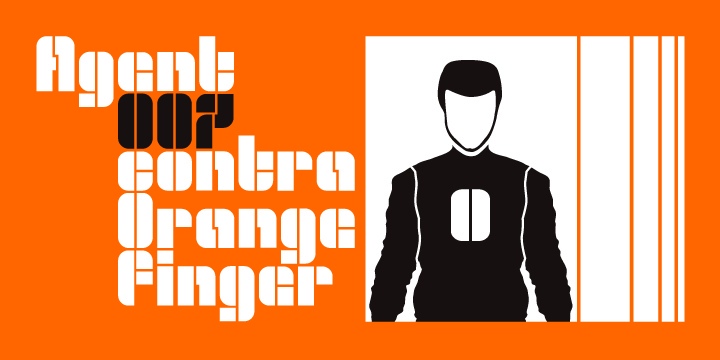
Orange Royale Font
Orange Royale Font is perfect for citrus grove branding, luxury orange juice packaging, upscale juice bar signage, premium vitamin C product labels, tropical resort marketing, sunny breakfast restaurant menus, fresh produce market promotions, and vibrant lifestyle communications where citrus luxury and sunny sophistication are emphasized.
What makes Orange Royale Font so exciting is its radiant ability to capture the luxurious essence of premium citrus through vibrant letterforms that embody the fresh elegance and sunny warmth of royal oranges while maintaining exceptional readability for upscale communications. The luminous character design reflects the premium quality and natural vitality that defines luxury citrus products and sunny lifestyle experiences.
The Orange Royale Font family includes light, regular, medium, bold, and script variants, with citrus-inspired decorative elements and royal ornaments that provide comprehensive tools for creating authentic premium citrus branding and luxury fresh produce design systems.
This distinguished typeface embodies the essence of citrus luxury, combining natural freshness with contemporary premium market requirements. The Orange Royale Font Free Download gives citrus brands access to typography that communicates premium quality and sunny sophistication.
The font's vibrant character architecture and sunny proportions create immediate associations with luxury citrus groves and premium fresh juice experiences. Each letterform has been designed to evoke the brightness and natural elegance that defines exceptional citrus products and upscale fresh lifestyle choices.
Orange Royale Font excels in creating refreshing communications that inspire healthy living and celebrate natural luxury. The typeface's radiant character makes it ideal for premium juice companies, luxury health brands, and upscale fresh food retailers targeting consumers seeking quality citrus experiences and sunny lifestyle products.
From Napa Valley orange groves to upscale smoothie chains, this font brings citrus credibility that appeals to health-conscious consumers who appreciate premium natural products and sunny lifestyle experiences. The versatile design maintains its vibrant character across both traditional fresh produce materials and modern digital wellness platforms.